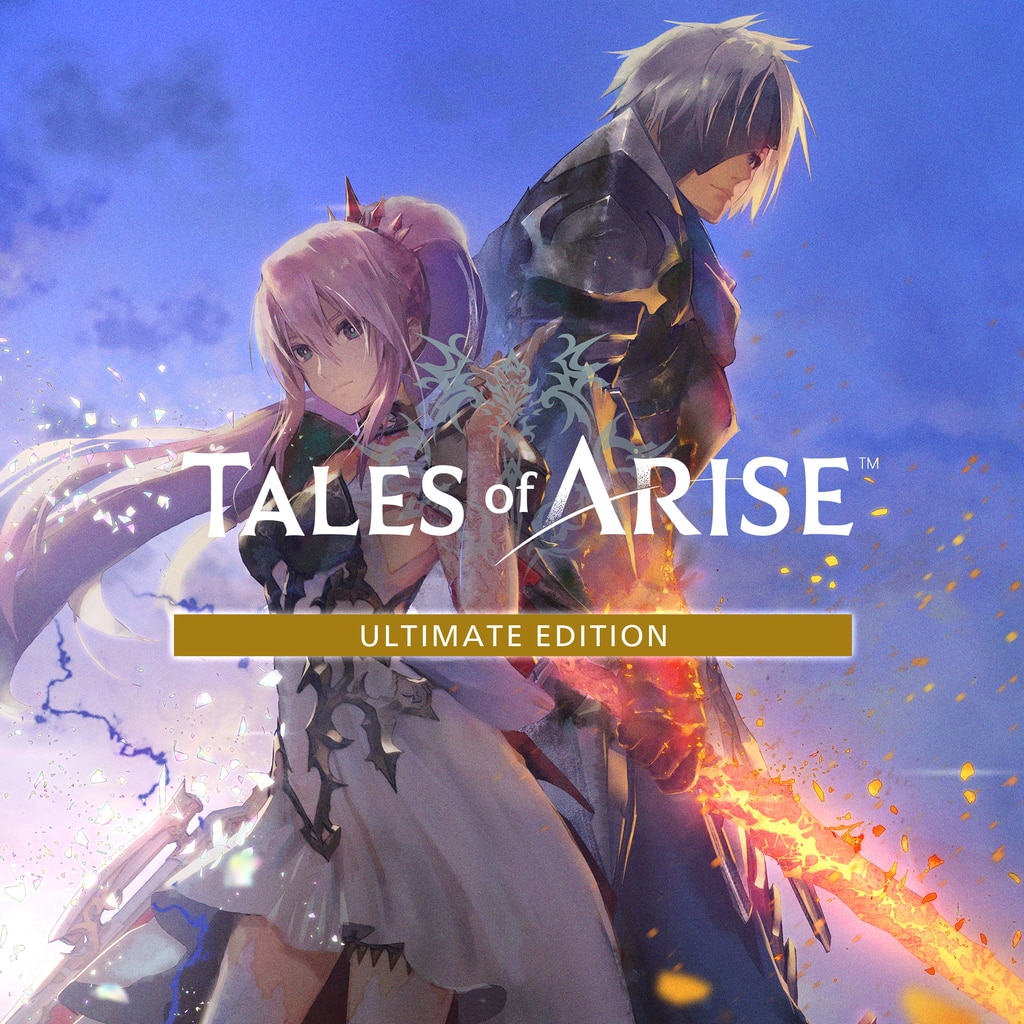
Tales of Arise Font
ActionTales of Arise is an action role-playing game developed by Bandai Namco Studios and released in 2021. The game features a new cast of characters, a stunning visual design, and a dynamic combat system set in a vibrant world.
The title of the video game is written in Civane Condensed Medium, a typeface created by Jeremy Dooley. Civane is an inscription font influenced by the grandeur of ancient monuments.